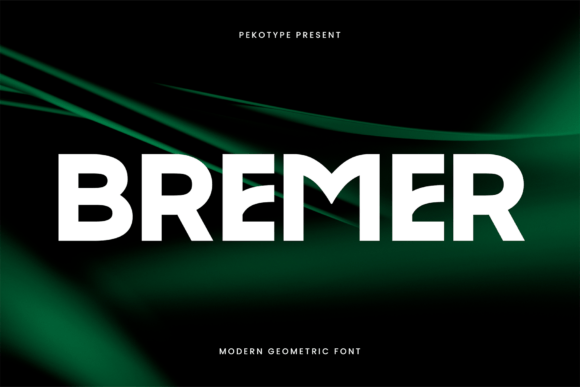
Introducing **BREMER** – The Modern Geometric Font for Precision and Clarity
In the ever-evolving world of design, a font can make all the difference in communicating your message effectively. Meet **BREMER**, a modern geometric typeface that embodies precision, structure, and a clean contemporary look. Designed to thrive in today’s digital-first design landscape, **BREMER** is the perfect choice for designers and crafters seeking a bold, professional presence.
The Design Philosophy of **BREMER**
**BREMER** is built on the principles of sharp lines, balanced proportions, and confident letterforms. This geometric construction ensures excellent readability, making it ideal for a wide range of applications, from branding and logos to marketing campaigns and social media graphics. The font’s modern visual identity is perfect for tech products, corporate identities, and promotional materials, where a precise and futuristic tone is essential.
Key Features of **BREMER**
- Multilingual Support**: **BREMER** features both uppercase and lowercase characters, making it highly versatile and ready for global use.
- Geometric Construction**: The font’s geometric design ensures excellent readability and a bold, professional presence.
- Digital and Print Media**: **BREMER** is crafted to perform consistently across digital and print media, making it perfect for a wide range of applications.
Applications of **BREMER**
**BREMER** is an incredibly versatile font, suitable for various design projects, including:
- Branding and Logos**: Create a strong visual identity with **BREMER**’s bold and precise letterforms.
- Marketing Campaigns**: Use **BREMER** to deliver a clear and concise message in your marketing materials.
- Tech Products**: **BREMER**’s modern visual identity makes it perfect for tech products and corporate identities.
- Social Media Graphics**: Stand out on social media with **BREMER**’s clean and contemporary look.
- Posters and Presentations**: Use **BREMER** to create eye-catching posters and presentations that demand attention.
- Promotional Materials**: **BREMER** is ideal for creating promotional materials that require a bold and professional presence.
Why Choose **BREMER**?
In a world where visual communication is key, **BREMER** offers a unique combination of precision, structure, and style. Here are just a few reasons why **BREMER** stands out:
- Unique Geometric Design**: **BREMER**’s geometric construction sets it apart from other fonts, making it perfect for designers seeking a modern look.
- Excellent Readability**: The font’s balanced proportions and confident letterforms ensure excellent readability, even at small sizes.
- Versatility**: **BREMER** is suitable for a wide range of applications, from digital and print media to branding and marketing materials.
**BREMER** is a modern geometric font that delivers precision, structure, and a clean contemporary look. With its sharp lines, balanced proportions, and confident letterforms, **BREMER** is the perfect choice for designers and crafters seeking a bold, professional presence. Whether used in branding, marketing campaigns, tech products, or social media graphics, **BREMER** is sure to make a lasting impression.